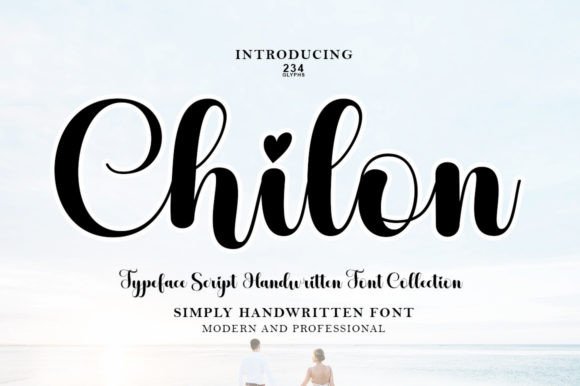
Embark on a typographic journey with Chilon Font, the enchanting script font family crafted by AF Type, and transform your creative projects into captivating masterpieces. Let your designs dance with the rhythm and flow of Chilon's characters, meticulously crafted to add a touch of sophistication and elegance to every word and letter.
Chilon's graceful curves and playful flourishes evoke a sense of timeless beauty, making it the perfect choice for projects that demand a touch of luxury and allure. Whether you're designing wedding invitations, branding materials, or creating stunning website designs, Chilon's versatile charm will leave a lasting impression.
With Chilon by your side, your designs will blossom into works of art. Its effortless elegance will elevate your projects, adding a touch of sophistication that will captivate and inspire. So, embrace the beauty of handwritten typography and let Chilon be your guiding light in creating designs that resonate with your audience.